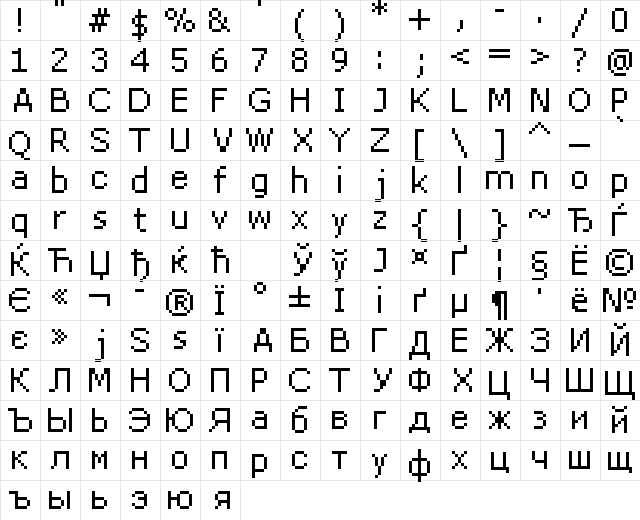
DPix_8pt Regular
| Designer | Nikolay Dubina |
Design Context for DPix_8pt Typeface
DPix_8pt is a composed and adaptable typeface that performs quietly and consistently across a wide range of design contexts.